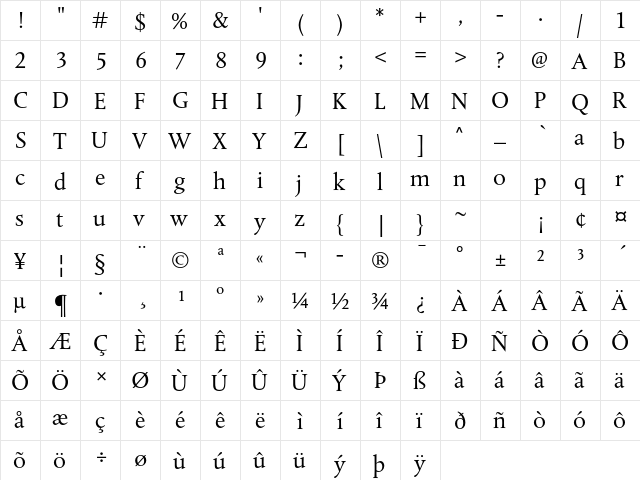
Albertina MT Std Regular
Design Context for Albertina MT Std Typeface
Albertina MT Std offers clean, dependable letterforms without strong stylistic allegiance, making it a practical choice for designers who need flexibility.